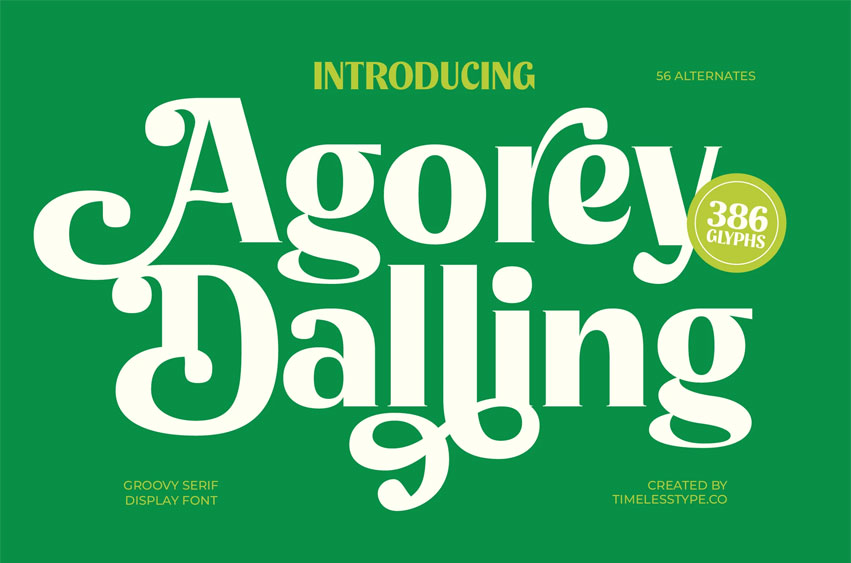
Agorey Dalling Font
Agorey Dalling Font is a groovy serif display font designed with playful curves, chunky shapes, and bold retro energy. Its expressive terminals and smooth flowing strokes capture the spirit of 70s typography, making it perfect for posters, retro branding, packaging, social media graphics, merchandise, and eye-catching headlines. The font delivers a warm, charismatic, and joyful personality that instantly elevates any creative project.
Featuring 56 alternates and 386 glyphs, Agorey Dalling offers extensive customization options—allowing designers to craft unique titles, decorative wordmarks, expressive logos, and fun vintage-style compositions. Its bold curves, nostalgic charm, and well-balanced forms make it an ideal choice for projects seeking a stylish blend of modern playfulness and classic retro flair.